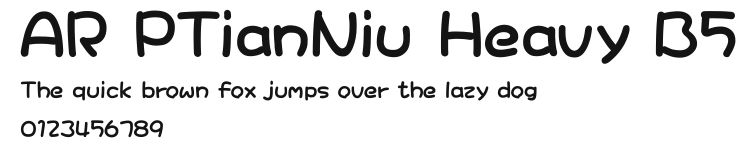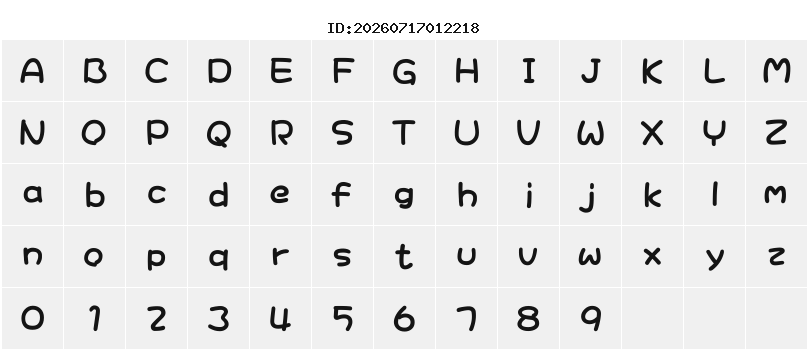
AR PTianNiu Heavy B5 Preview
• Font Name: AR PTianNiu Heavy B5
• Designer: Arphic Technology Co., Ltd.
• Manufacturer: Arphic Technology Co., Ltd.
About AR PTianNiu Heavy B5.ttf
AR PTianNiu Heavy B5.ttf is a modern, elegant sans-serif font designed for ultimate readability and visual harmony. Perfect for branding, headlines, web design, and print materials.